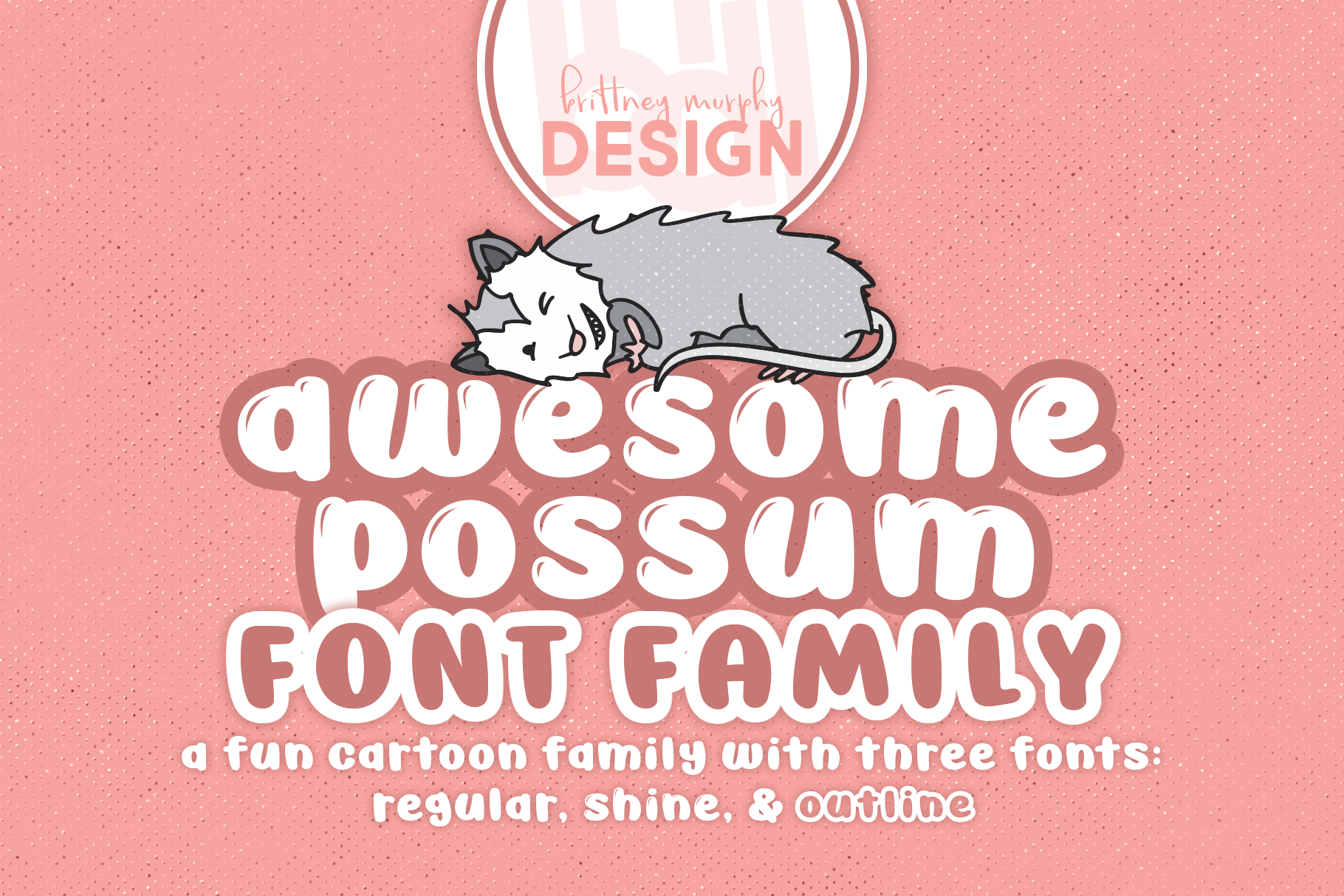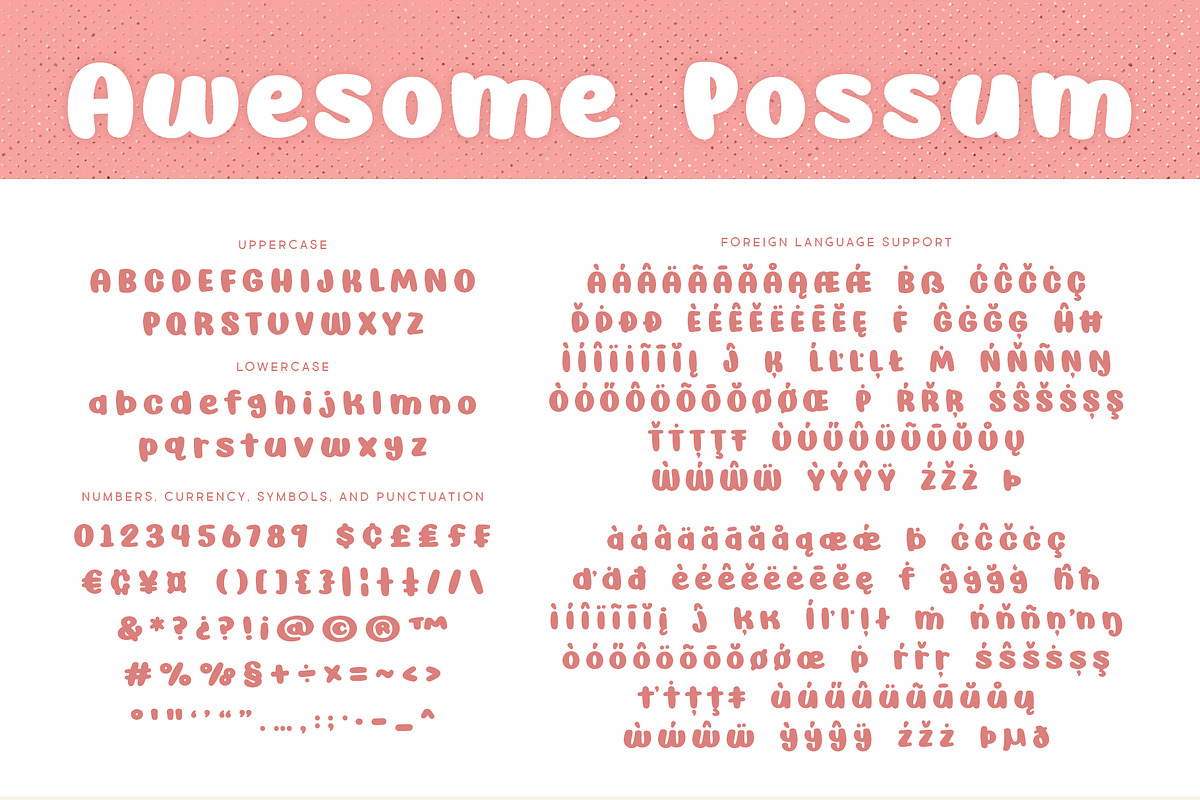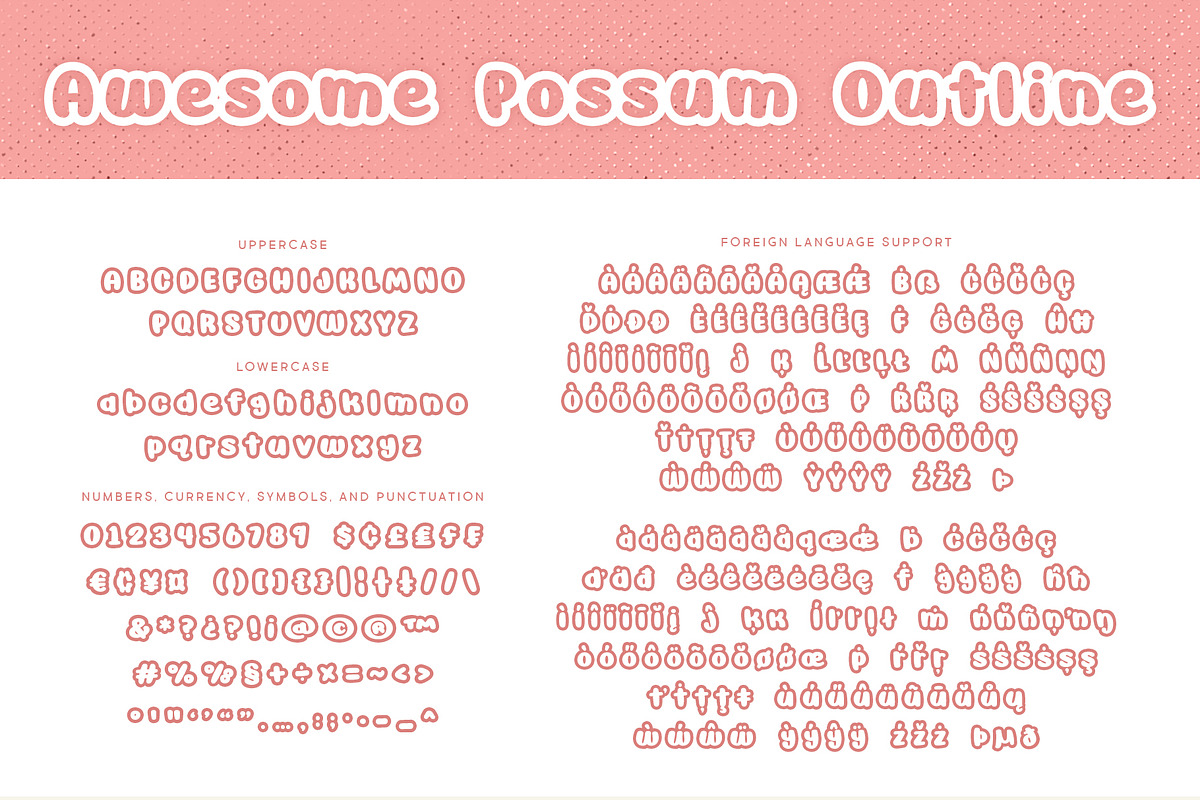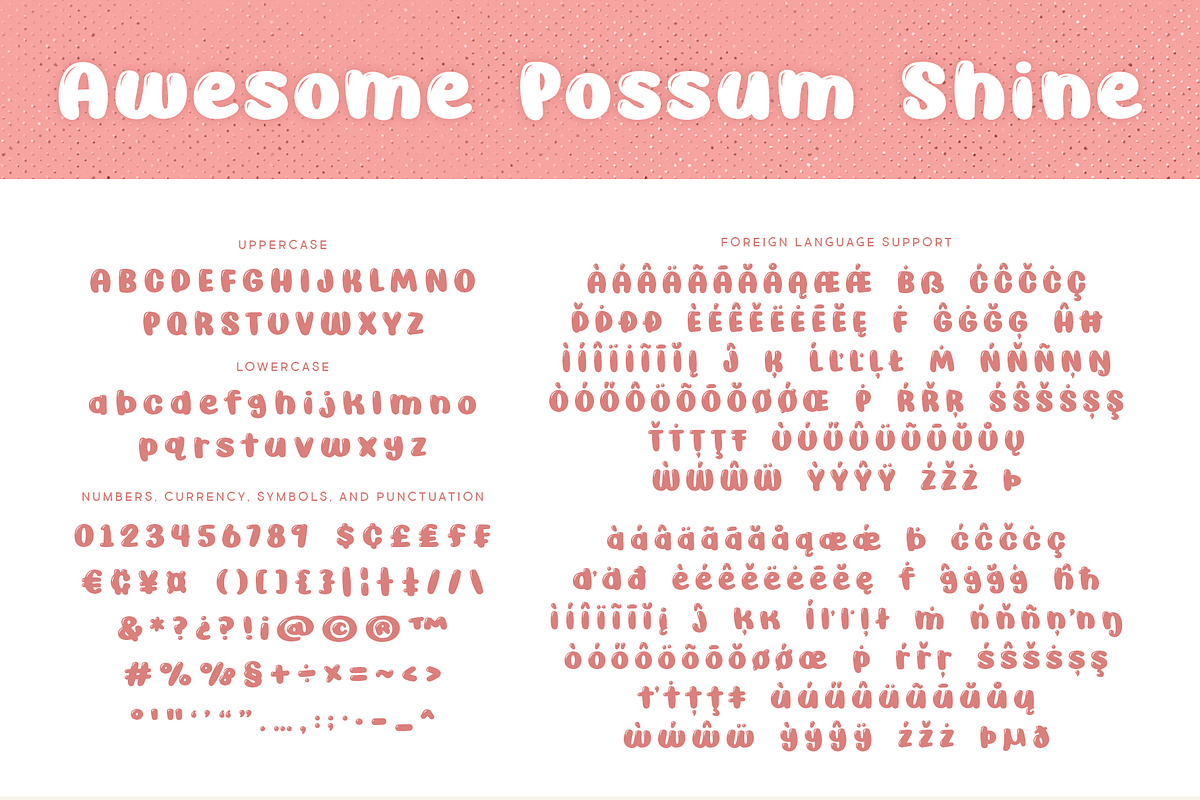
Awesome Possum Font Family
Awesome Possum Font Family is a fun cartoon set of fonts created in 2021 by Brittney Murphy Design! Awesome Possum is a thick playful sans. Brittney wanted to create something fun and versatile for a wide variety of projects.